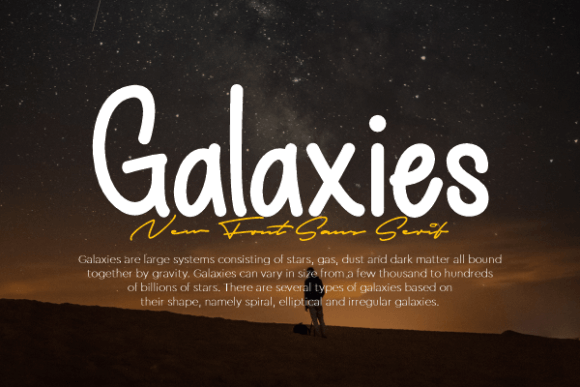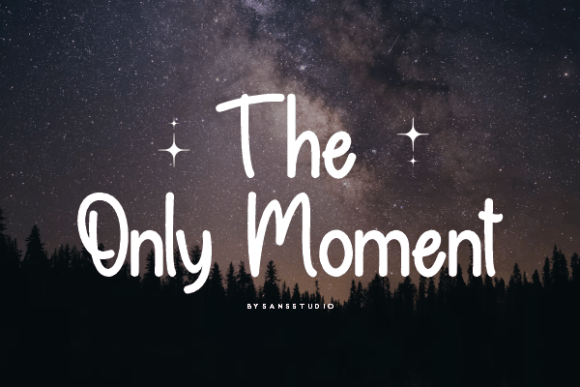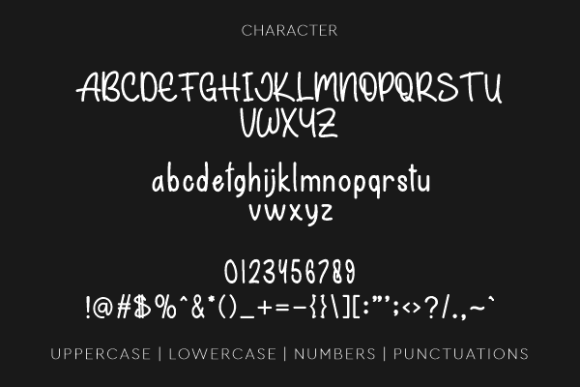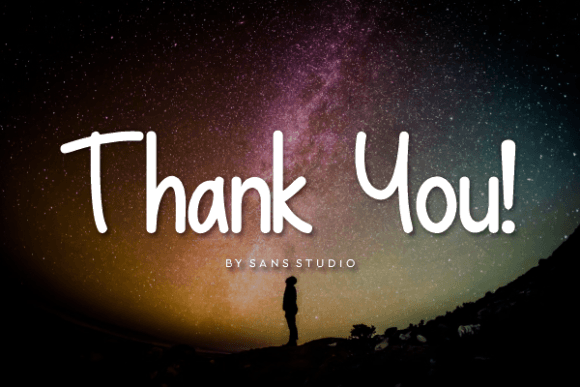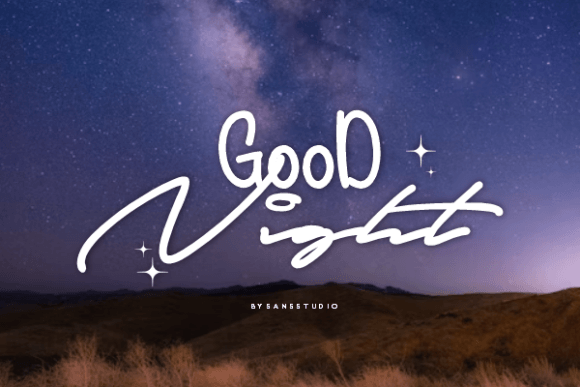
Introduction to Milky Way Font
Do you remember the first time you saw a font that just made your design project pop? For many of us, it’s that moment when we stumble upon the perfect combination of style and personality. I recall it was a children’s book cover, and the font was none other than the delightful Milky Way Font. Its whimsical charm and clarity immediately caught my attention, and I knew I had to learn more about this design treasure.
As a designer, I can attest that finding the right font can make all the difference in a creative project. That’s why I’m excited to share with you the wonders of the Milky Way Font, a modern sans-serif font that’s perfect for a variety of design needs, from children’s books to branding.
Key Features of Milky Way Font
- Unique, hand-drawn design elements that add a touch of whimsy to any design project.
Honest Review: Milky Way Font
I recently had the chance to work with the Milky Way Font, and I must say it’s been a great experience. This font is perfect for any creative project that requires a touch of elegance and sophistication.
- High-quality typography that makes it stand out from the rest
- Works well for both digital and print media
One of the things that I love about the Milky Way Font is its versatility. It’s perfect for a wide range of design projects, from logos to brochures. The font is easy to read and the lines are clean and crisp.
- May not be suitable for very formal or conservative designs
- Some users may find the font too ornate or busy
Overall, I’m really impressed with the Milky Way Font. It’s a great addition to any design resource and I highly recommend it for any creative project. With its high quality and transparent background, it’s a must-have for any designer.
Use the Milky Way Font in combination with other design elements, such as images and graphics, to create a unique and eye-catching design. Experiment with different font sizes and colors to achieve the desired effect.
The Milky Way Font is perfect for a variety of creative projects, including business cards, brochures, and website headers. Its high-quality design makes it an excellent choice for any project that requires a professional and sophisticated look.